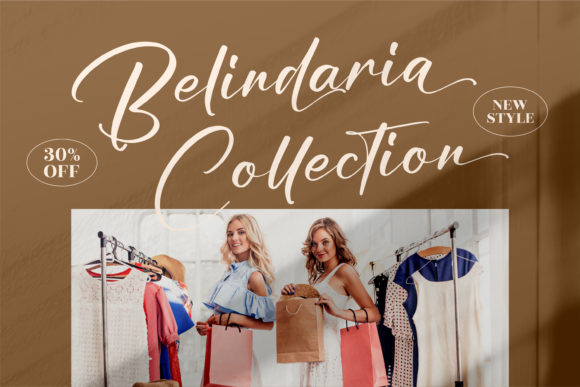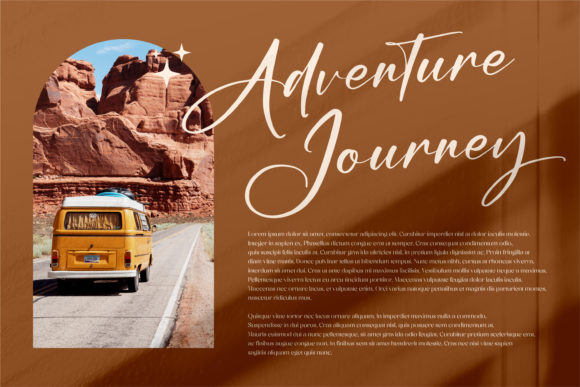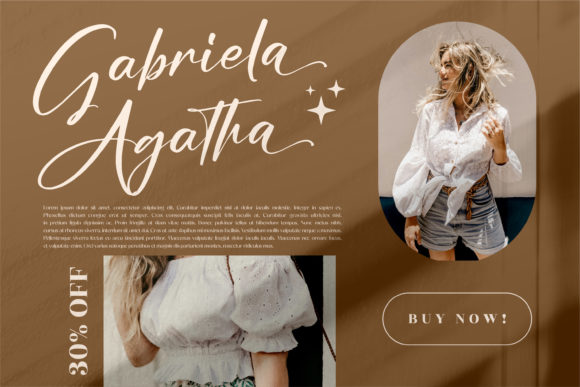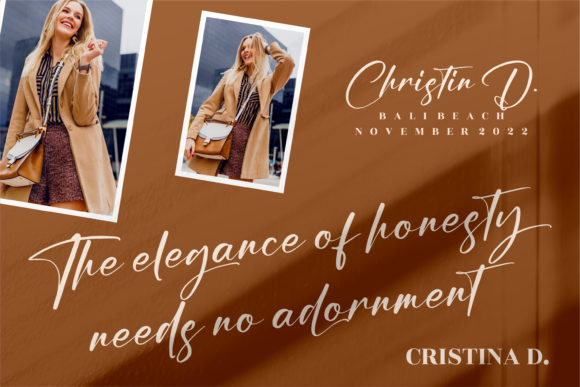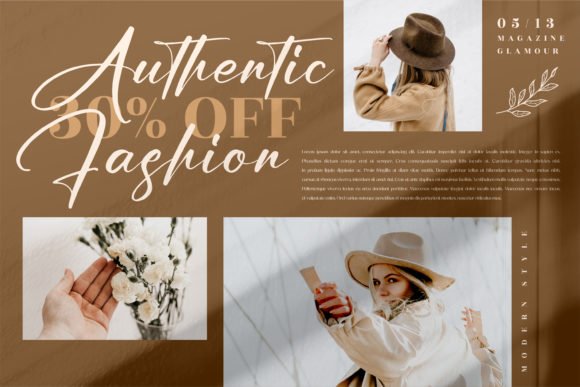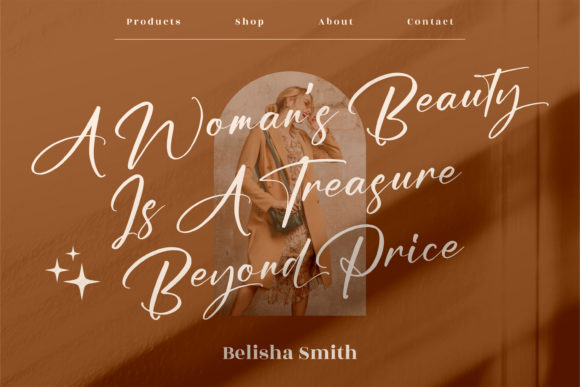
Australia Custom Font: Adding a Touch of Whimsy to Your Designs
There’s nothing quite like the thrill of bringing a new creative project to life. It’s the moment when your ideas start to take shape, and you can envision the final result. For designers, this moment is often the result of a well-chosen font, one that sets the tone and personality of the entire piece. And that’s exactly where the Australia Custom Font comes in.
| 👤 Author | Perspectype |
This lovely script font is designed to add a touch of whimsy and charm to your designs. With its playful characters and fluid lines, it’s perfect for creating eye-catching headings, titles, and quotes. The Australia Custom Font is PUA encoded, making it easy to access all of the glyphs and swashes you need to create stunning designs.
Australia Custom Font Key Features
- Font Family: Australia Custom Font is a unique, hand-crafted typeface designed specifically for the Australian market.
- Unique Characteristics: The Australia Custom Font features a distinct, modern design with a friendly feel, making it perfect for branding, advertising, and editorial content.
Australia Custom Font Review
As a designer, I was excited to dive into the Australia Custom Font and see what it had to offer. Here’s my honest review.
- The font’s unique blend of modern and traditional elements is a great representation of Australian culture.
- The font is highly legible, making it perfect for body text and long-form content.
- The font’s versatility allows it to be used in a variety of design contexts, from branding to advertising.
- The font may be too bold for certain design applications, such as academic or technical writing.
- The font’s uniqueness may not be to everyone’s taste, and some users may find it too gimmicky.
- The font’s character set is limited, which may cause issues with languages that require a wider range of characters.
I think the Australia Custom Font is a great choice for designers looking to add some local flavor to their projects. While it may not be perfect for every design application, it’s a solid option for those looking to create a unique and memorable brand identity.
The Australia Custom Font is ideal for creating a unique and memorable brand identity. Use it for:
- Business logos and letterheads.
- Menu boards and signage.
- Brochures and marketing materials.